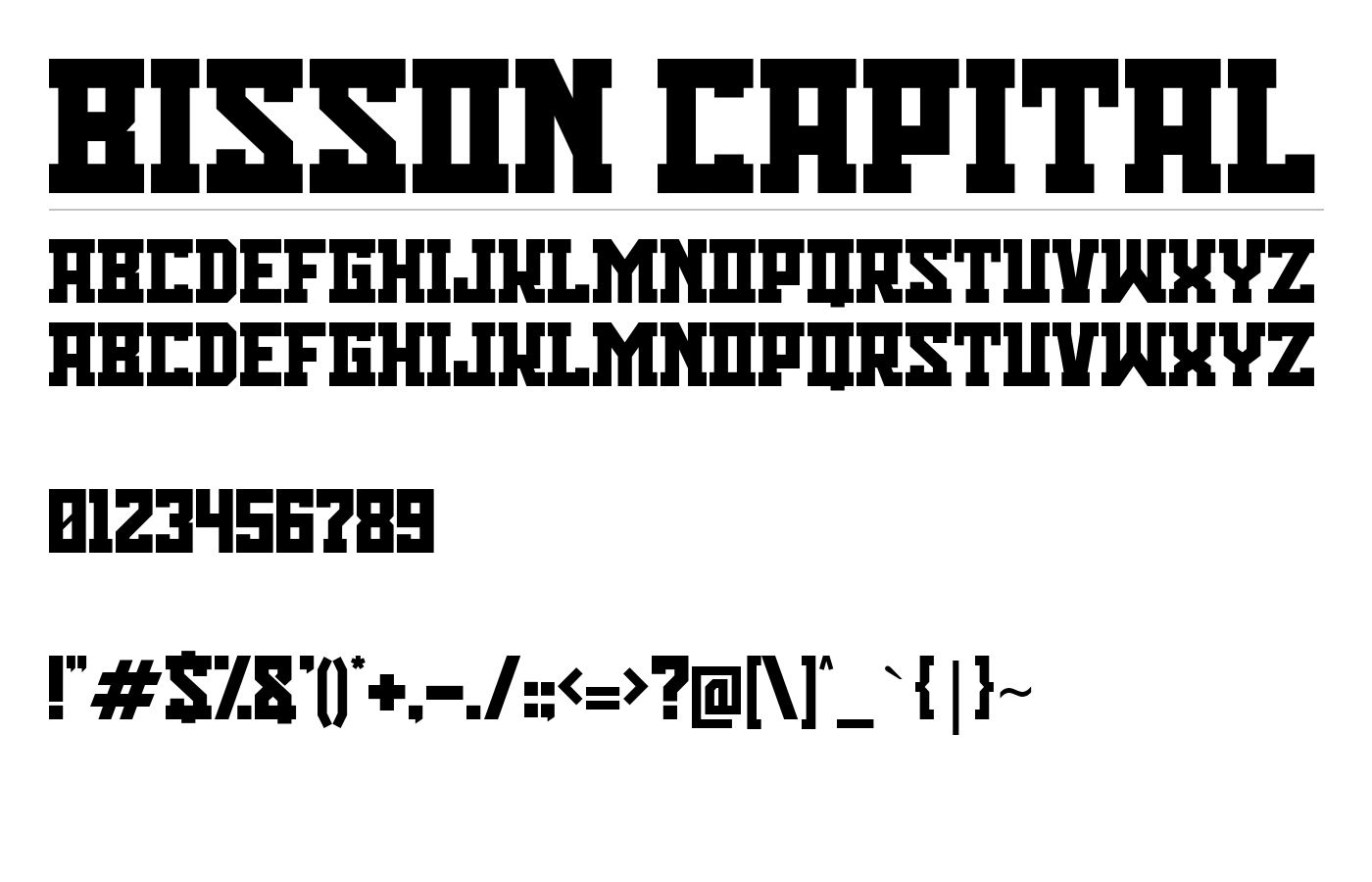
Bisson Capital is a bold, condensed slab serif font with a strong, blocky presence that evokes a vintage Western or industrial style. Its heavy weight and sharp, angular serifs give it a commanding and rugged personality, making it ideal for headlines, logos, and branding that require a tough, impactful look. This font works especially well in designs aiming to capture an old-fashioned, sturdy, and authoritative mood.
Bisson Capital Font
About Bisson Capital Font